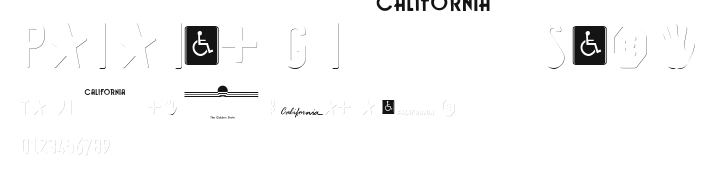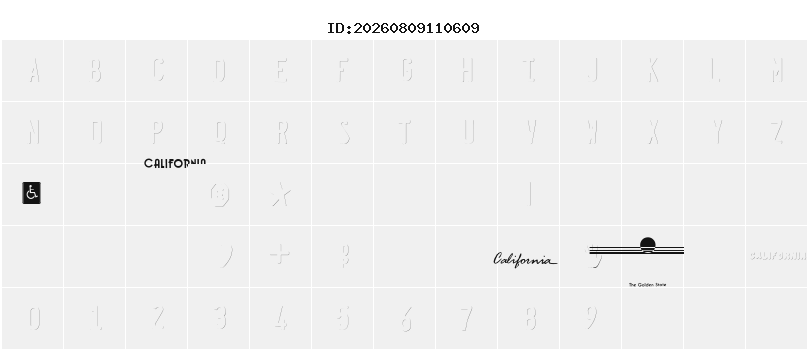
• Font Name: Penitentiary Gothic Shadow
• Full Font Name: Penitentiary Gothic Shadow
• Manufacturer: E-phemera Fonts
• Description: Created by Richard Lucas and Andrew Leman.
Penitentiary Gothic Shadow.ttf is a modern, elegant sans-serif font designed for ultimate readability and visual harmony. Perfect for branding, headlines, web design, and print materials.